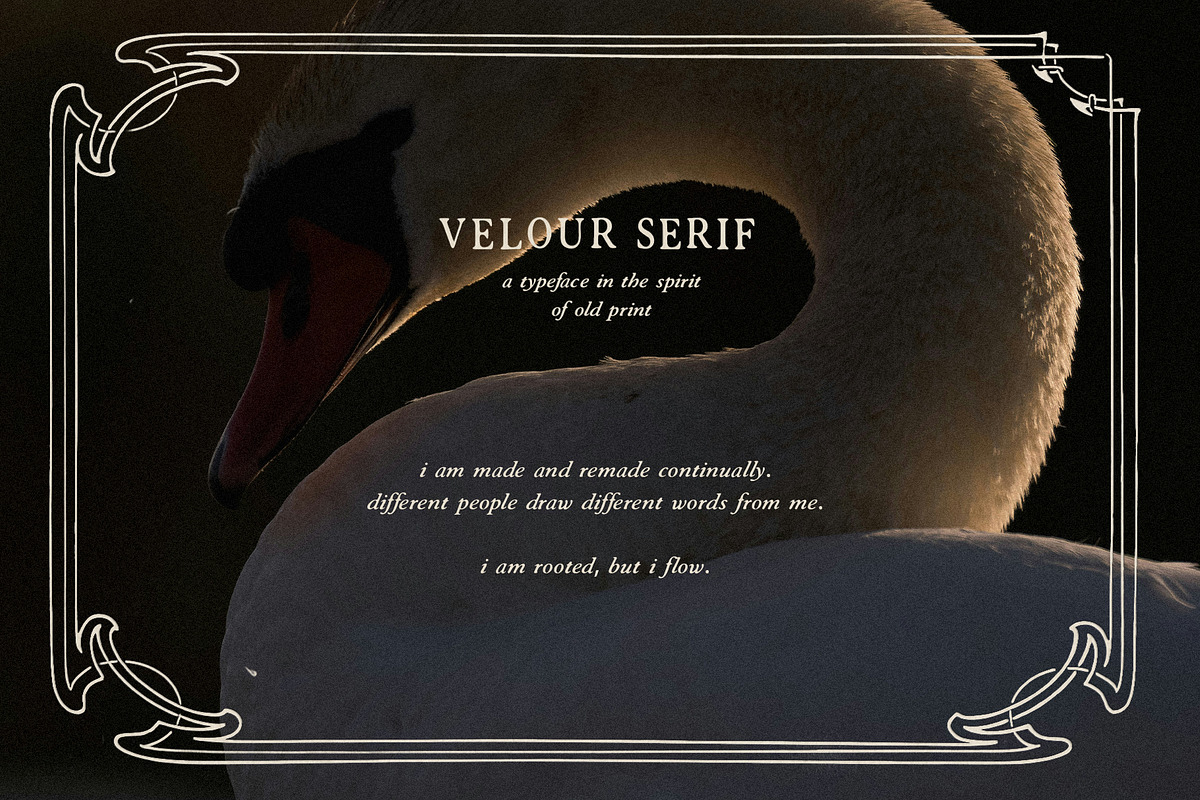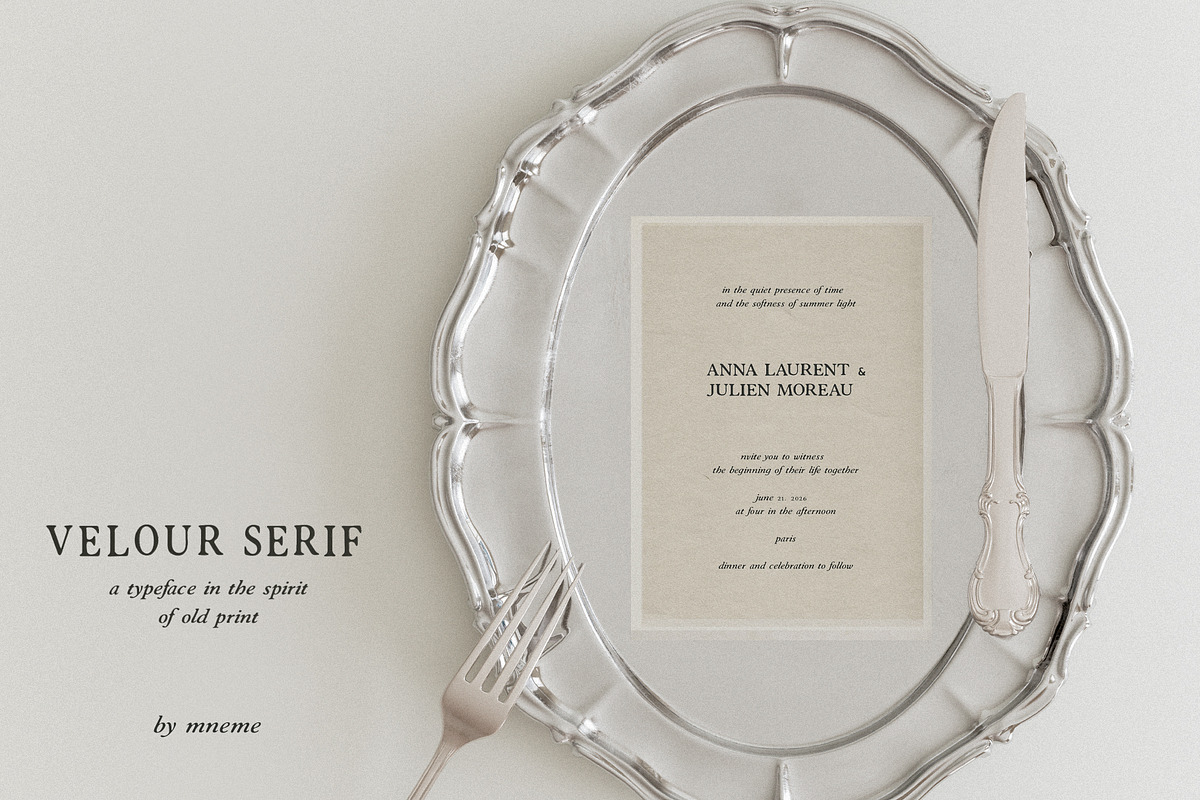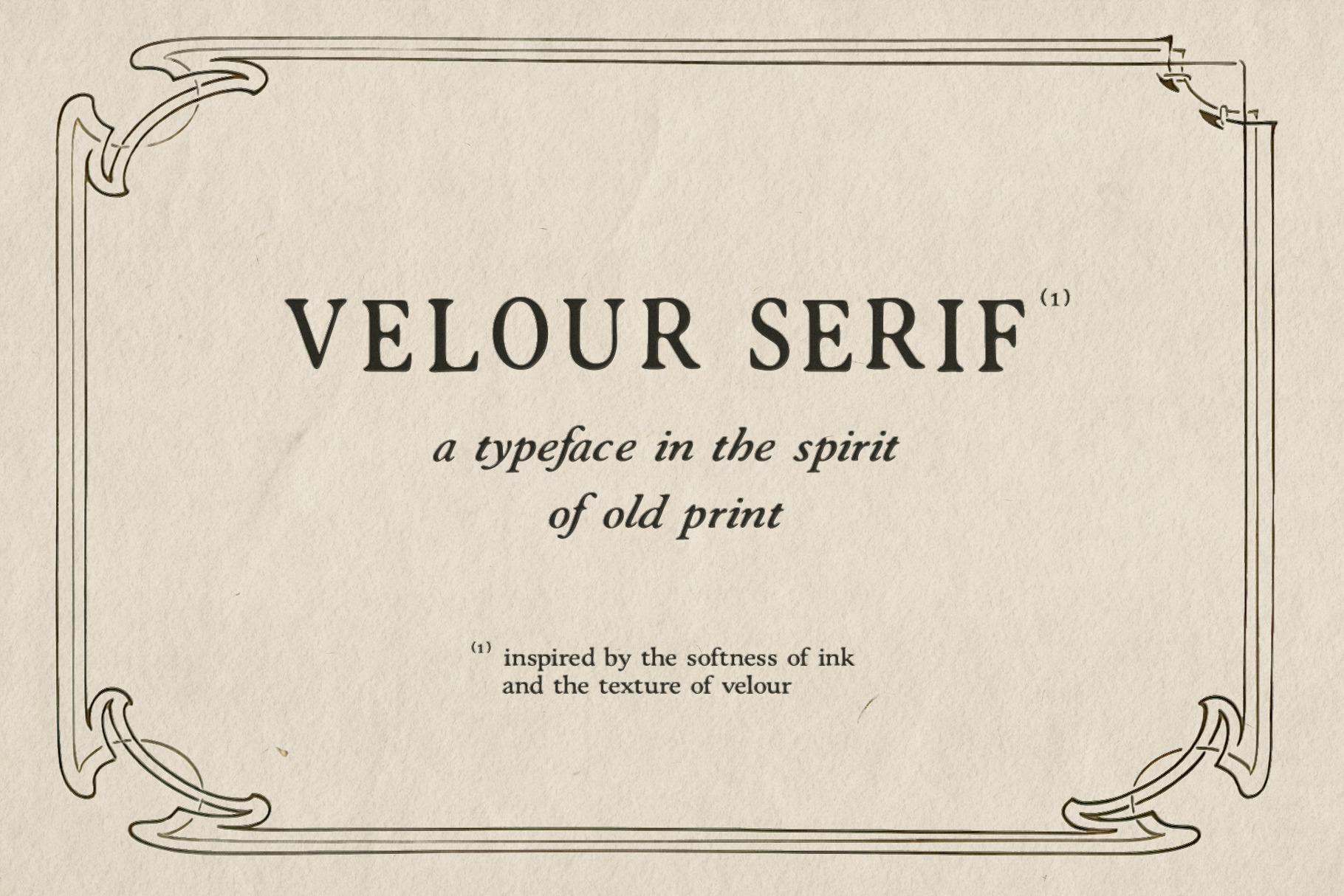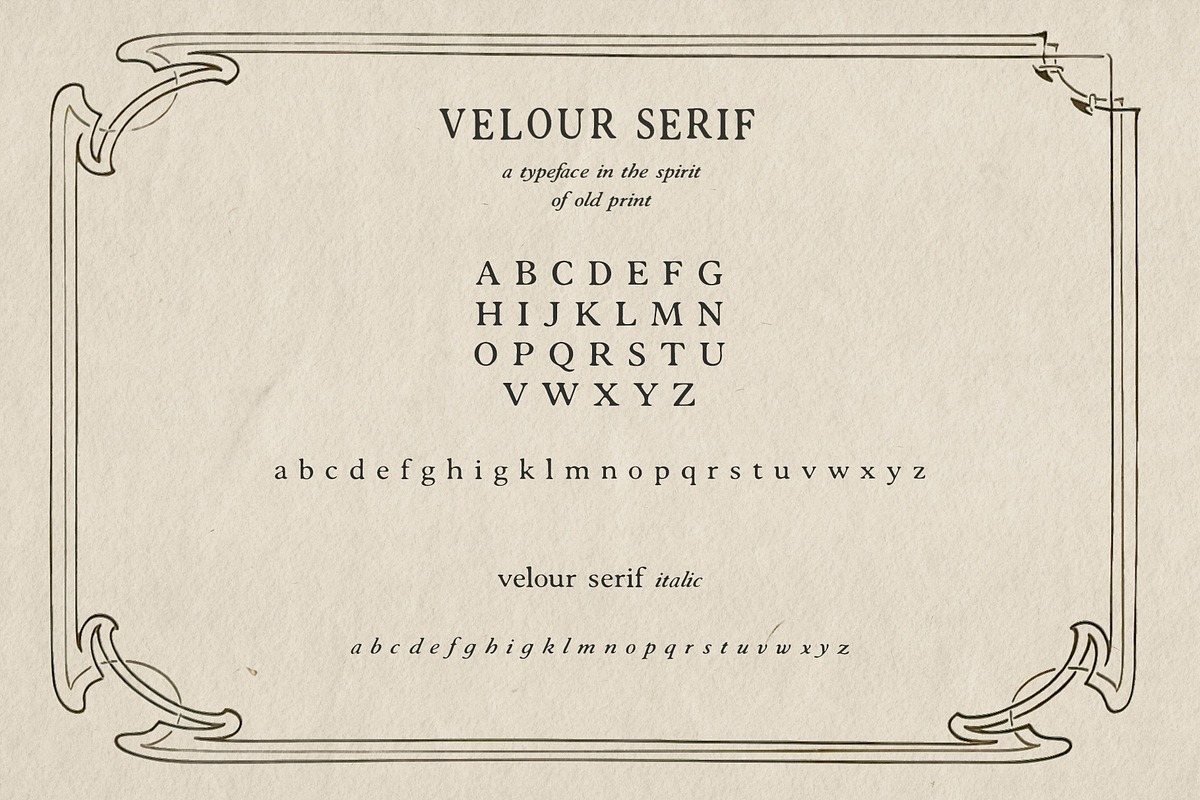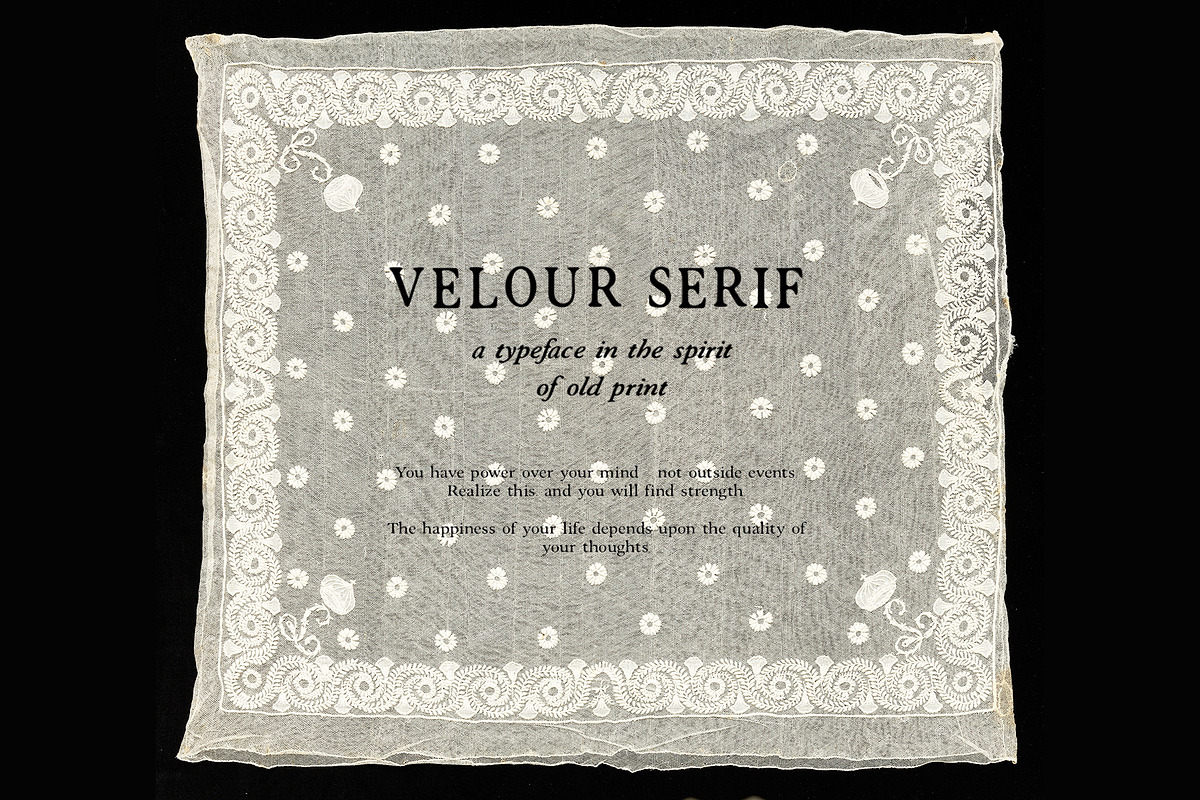
Velour Serif: Elegant Vintage Font
Velour Serif is an elegant typeface inspired by the softness of ink and the quiet texture of old print.
It blends classic serif structure with subtle organic irregularities, creating a refined yet human feel — perfect for projects that require warmth, nostalgia, and understated luxury.
The typeface includes carefully crafted uppercase, lowercase, numerals, punctuation, and italic style, allowing for expressive and balanced typography.
Velour Serif works beautifully in editorial layouts, wedding invitations, branding, packaging, and atmospheric visual identities.
- Italic style for lowercase letters
- Basic multilingual support
- Wedding invitations
- Editorial design
- Branding & logos
- Packaging
- Vintage-inspired projects
Designed to feel soft, timeless, and quietly expressive.